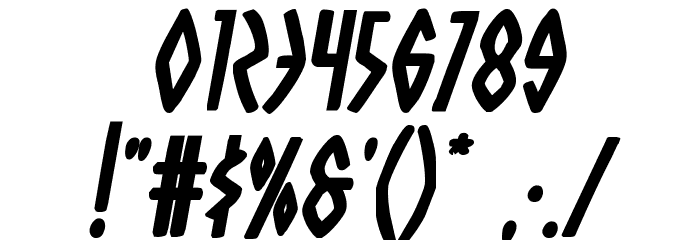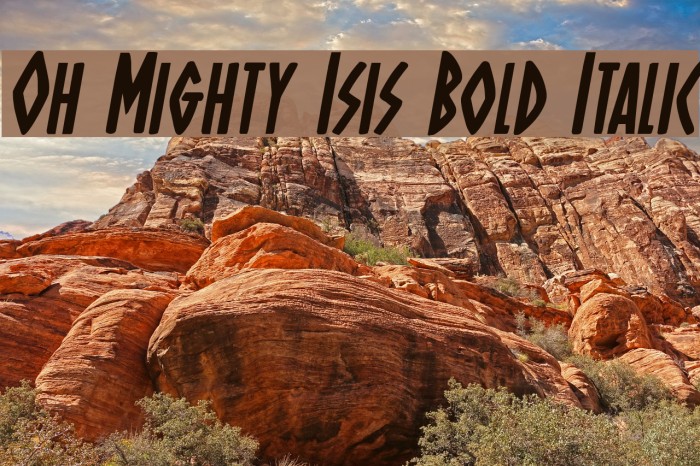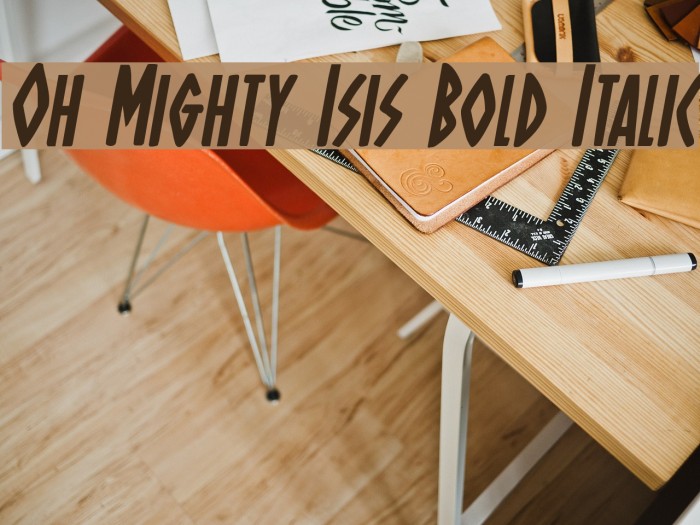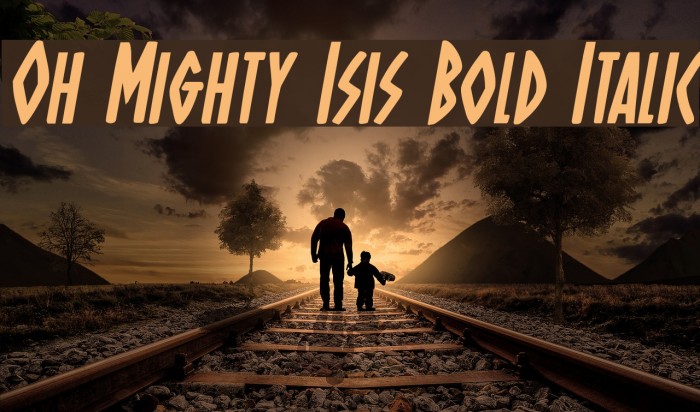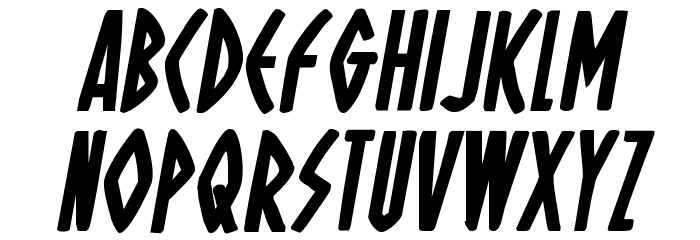
Oh Mighty Isis Bold Italic Font
This font features a bold and italicized style with a dynamic and energetic appearance. The characters are slightly slanted, giving a sense of movement and urgency. The strokes are thick and consistent, providing a strong visual impact. The uppercase and lowercase letters maintain a cohesive design, with sharp angles and a modern flair. The numbers and special characters are designed to match the overall aesthetic, ensuring uniformity across all elements. This font is ideal for projects that require a bold statement and a contemporary look.
A bold, italicized font with dynamic, slanted characters and a modern flair.
• Proposed Projects: Ideal for headlines, posters, branding, and advertising materials that need a strong visual impact.
• Category: Decorative/Display
• Overall Style: Modern
• Use Case: Headlines, Logos, Posters